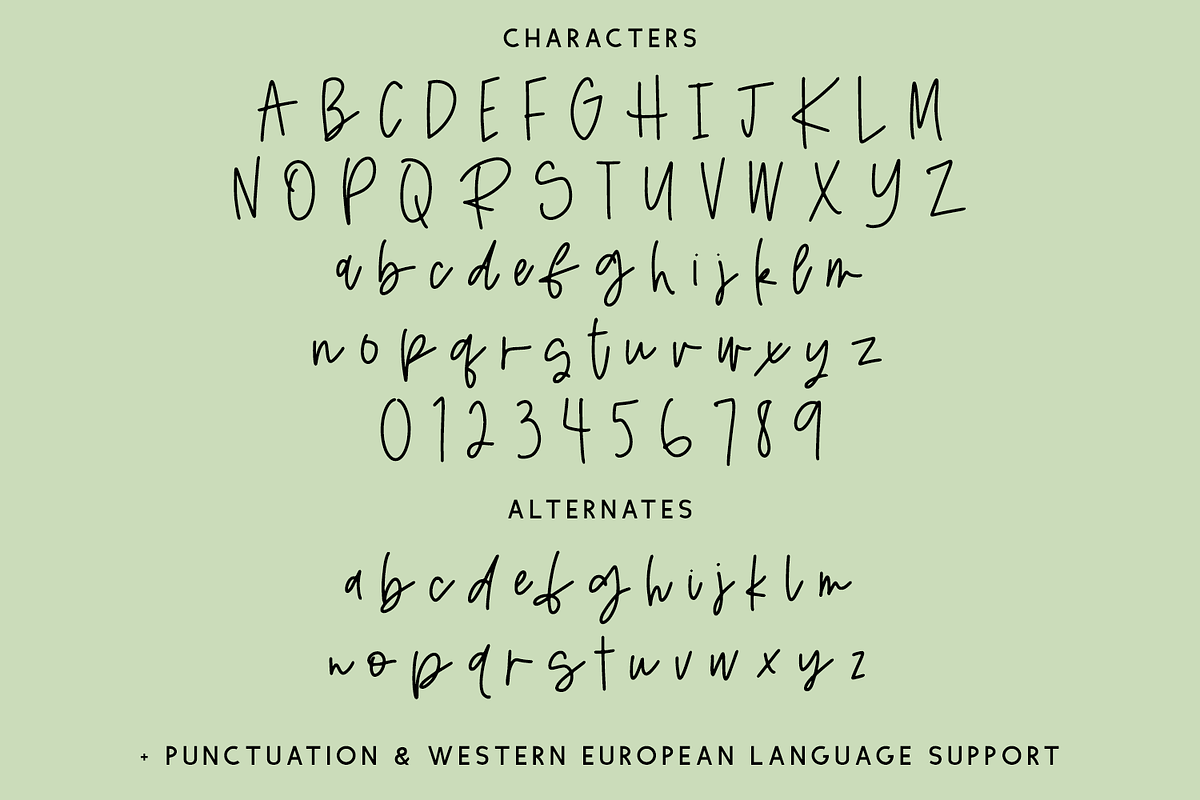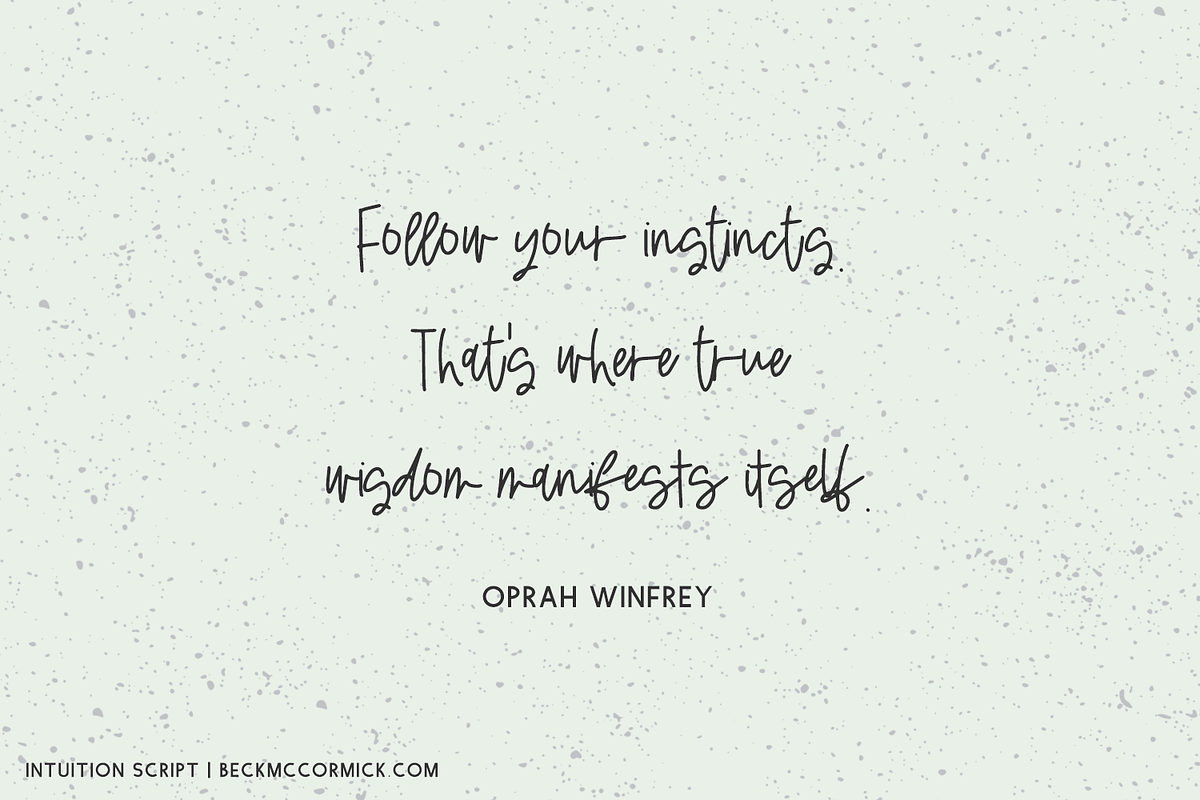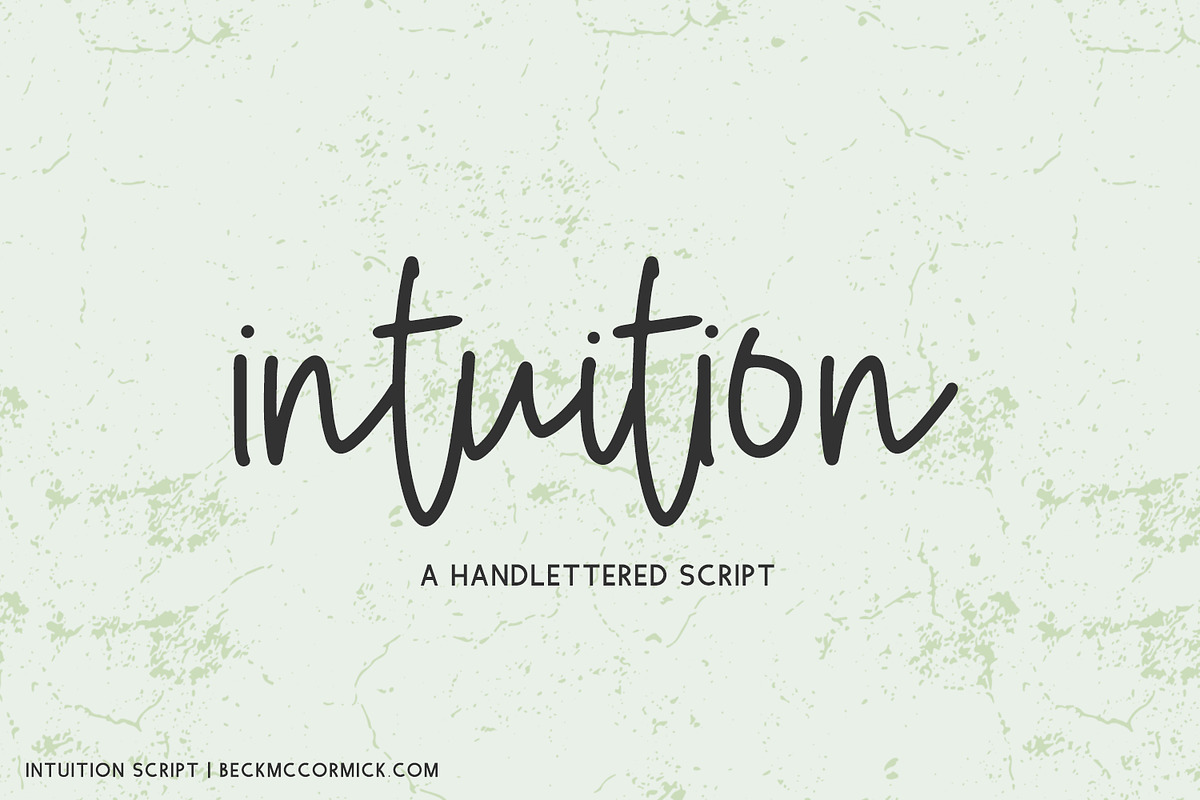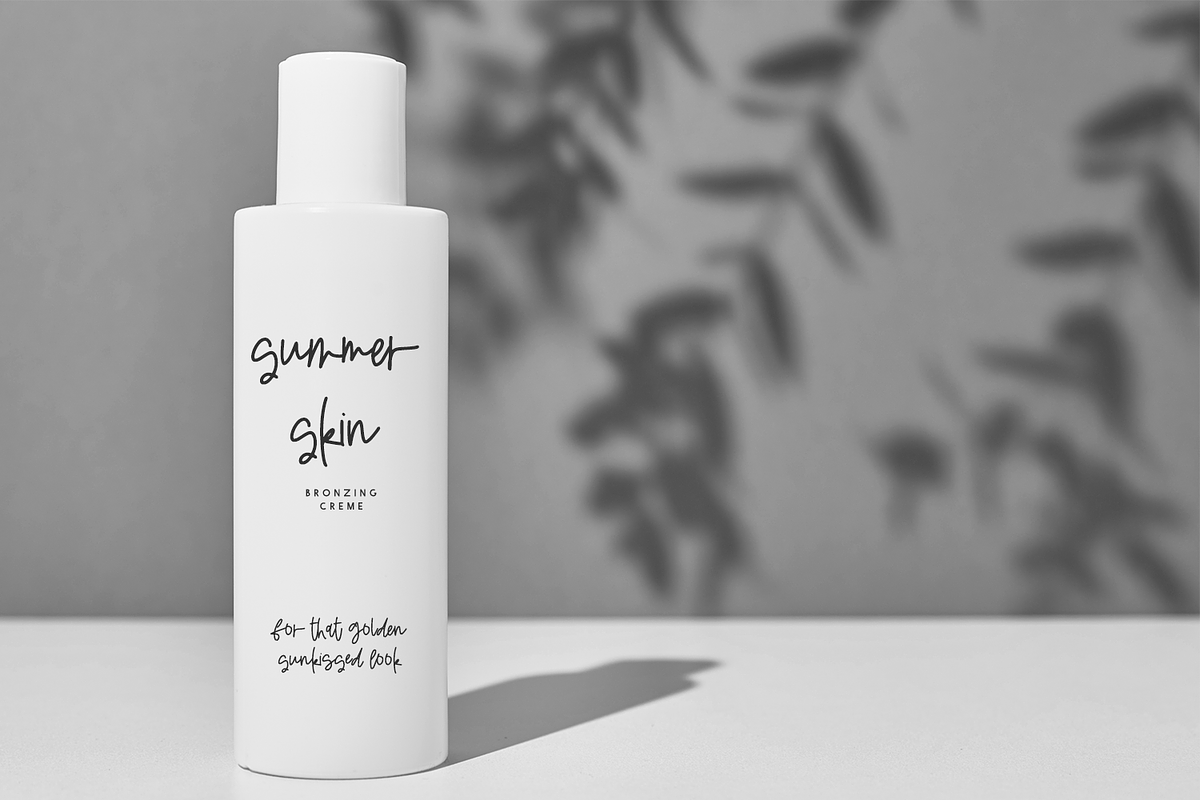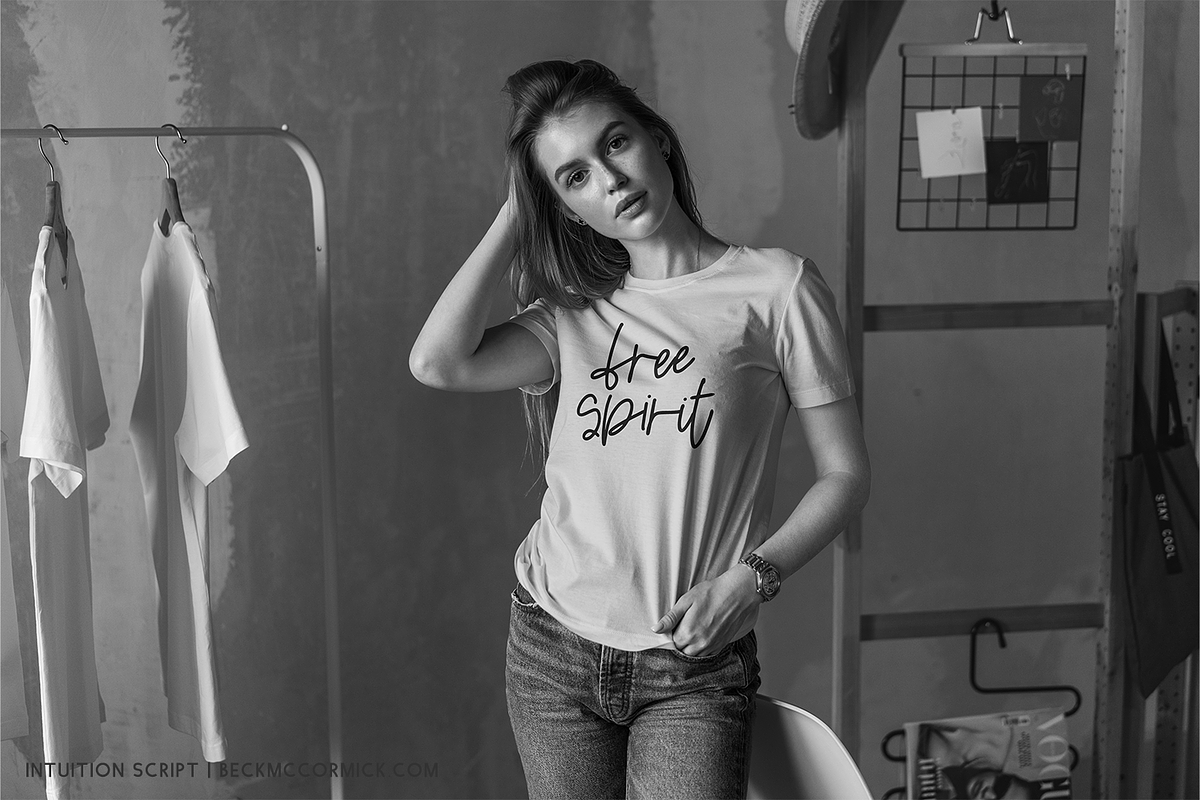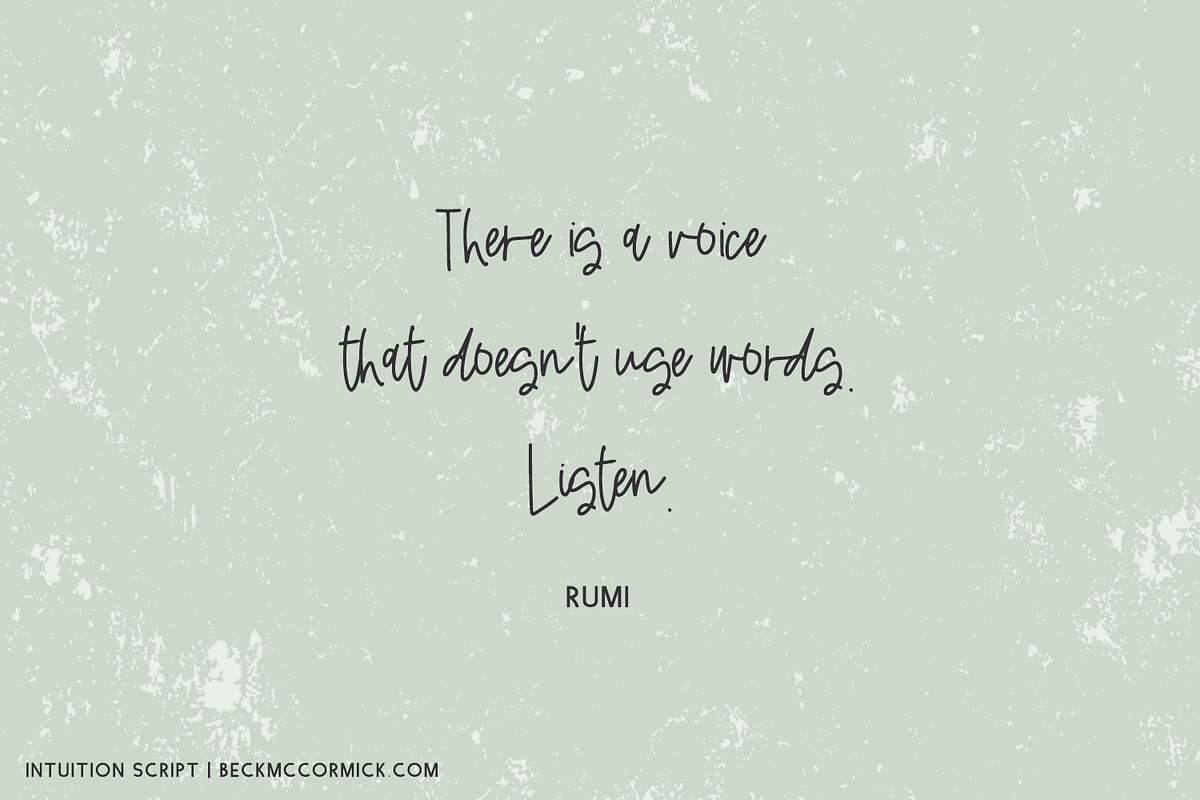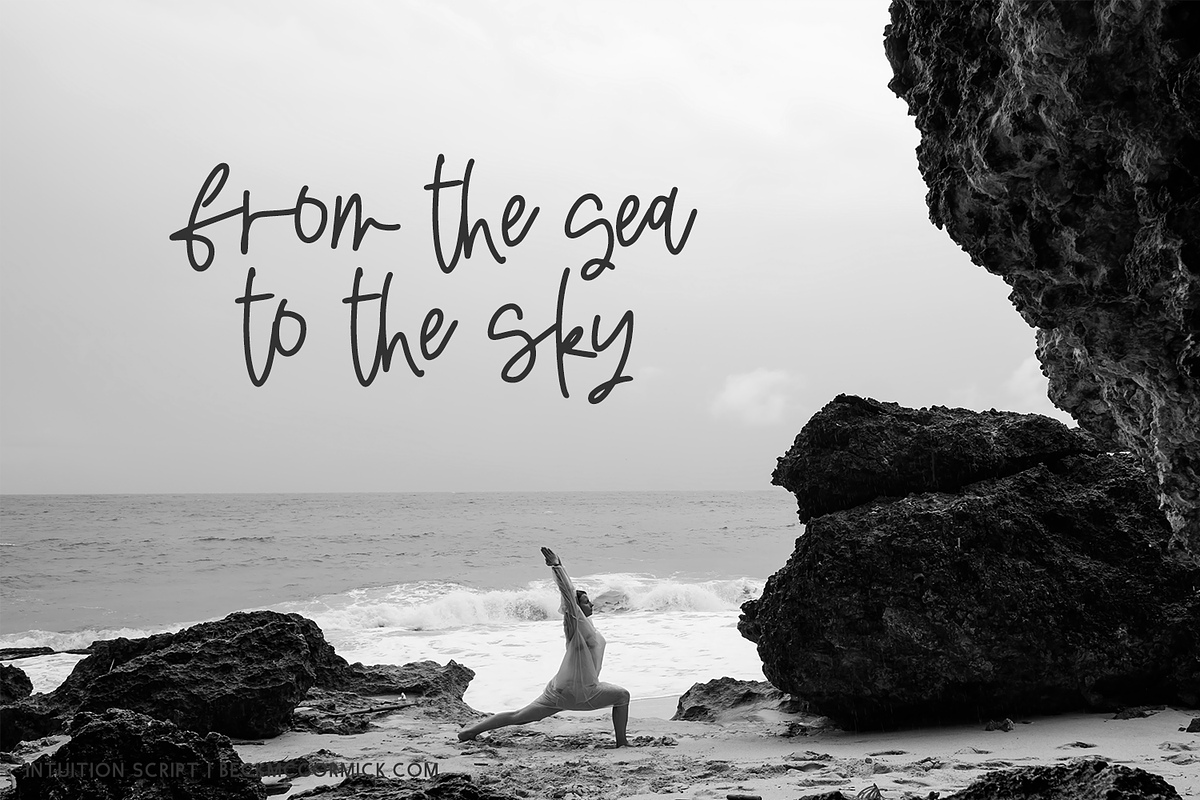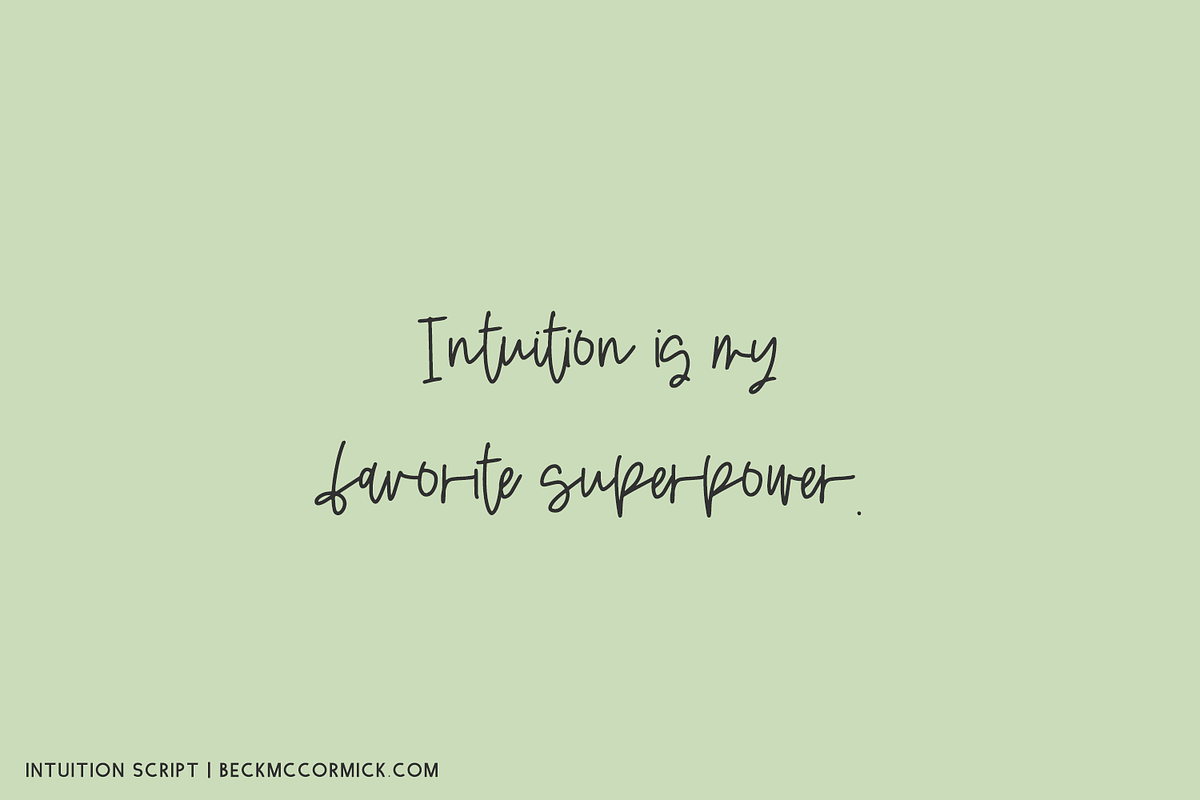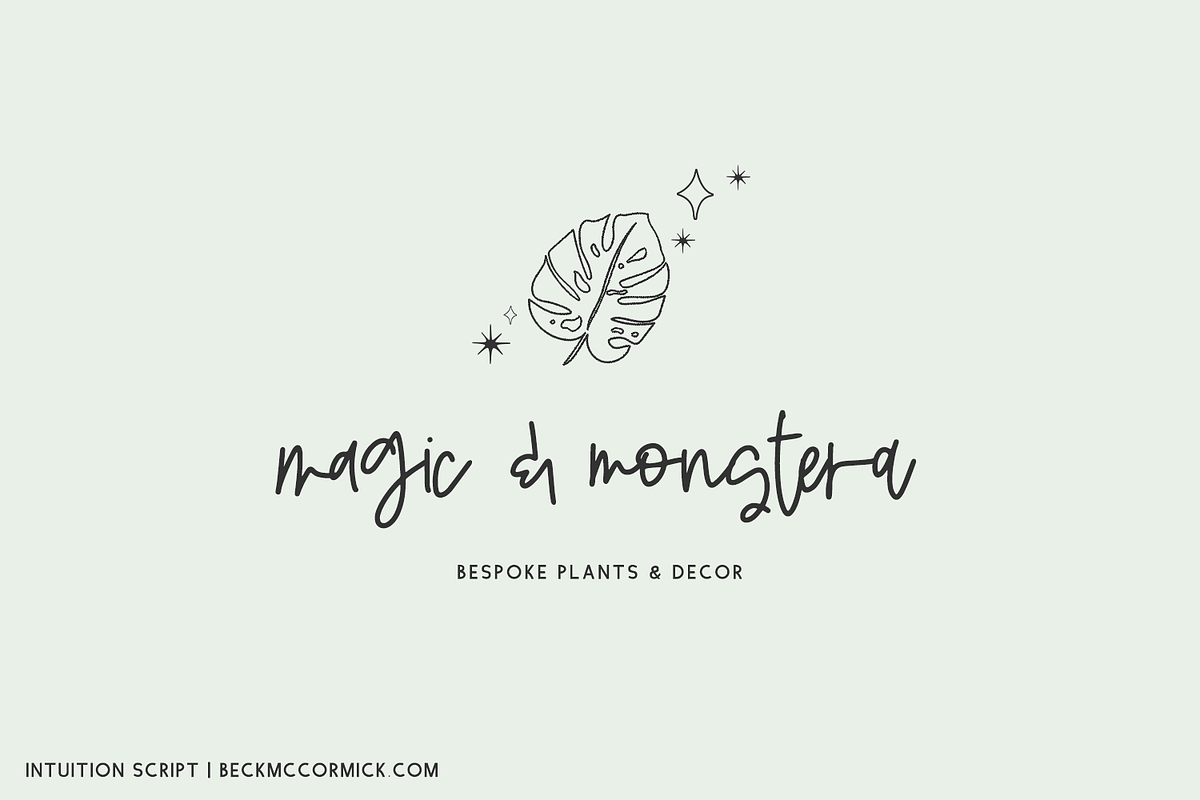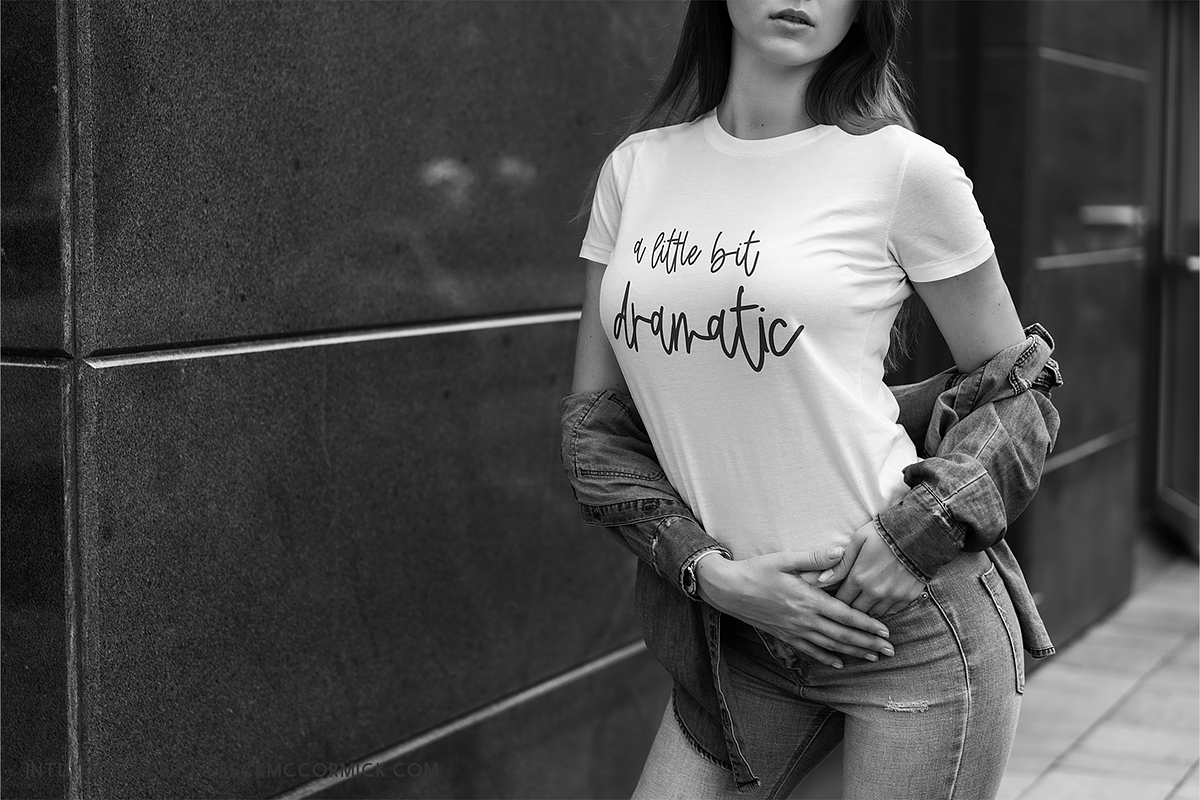
Intuition Script
Introducing Intuition Script, a monoline handlettered script. Intuition features a varied baseline, and effortless messy letters just like quick handwriting. Intuition features a second set of lowercase letters so that you may customize your text even further, giving it a more realistic handwritten look.
Intuition Script is best for:
- logos + branding
- website design + website accents - think travel blogs, fashion blogs, & more
- clean print design, like magazines + flyers
- header elements that need handwritten touch
- quote graphics for social media
- full upper + lowercase characters
- numbers + punctuation
- Western European Language Support
- 26 alternate characters